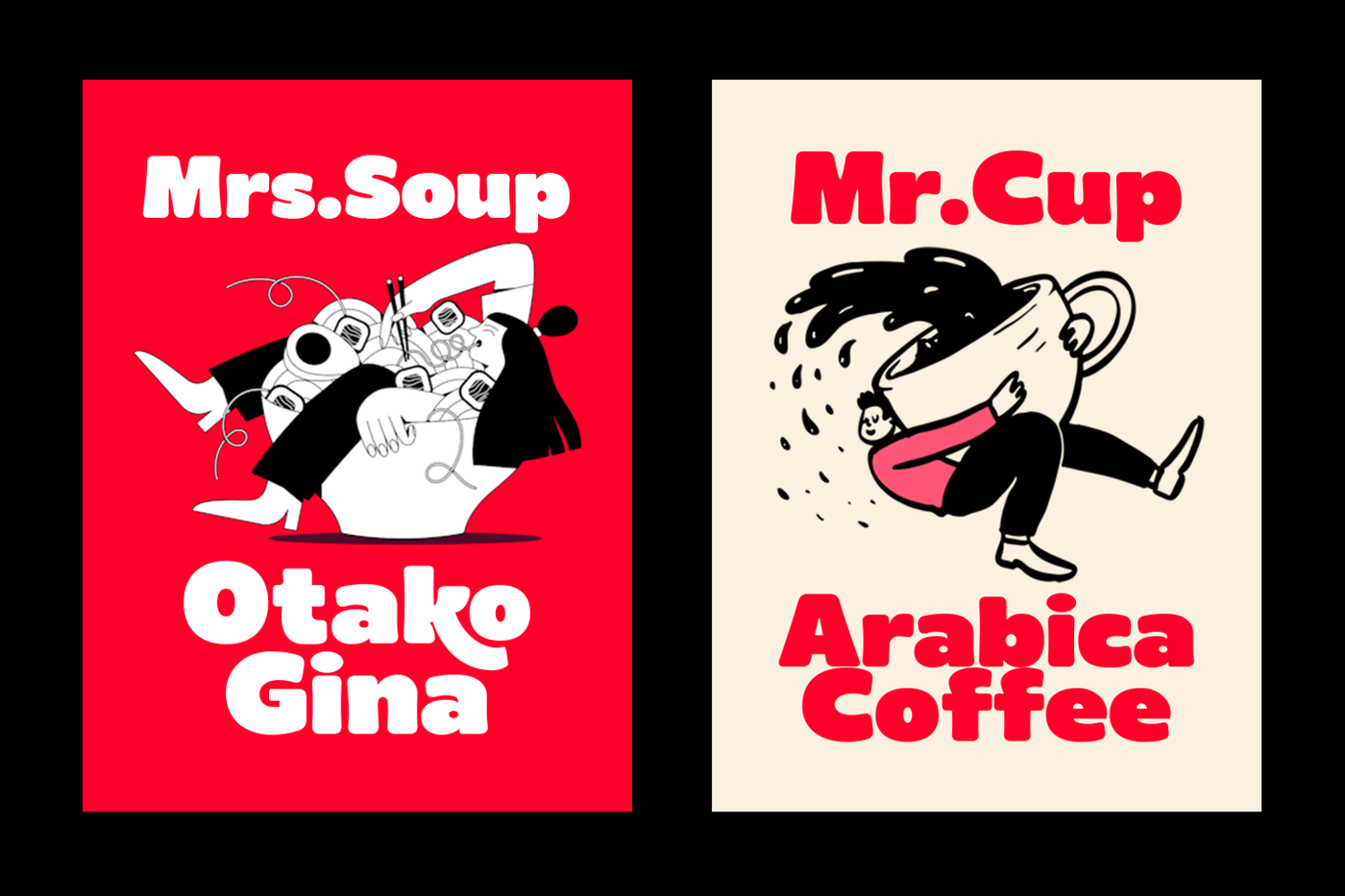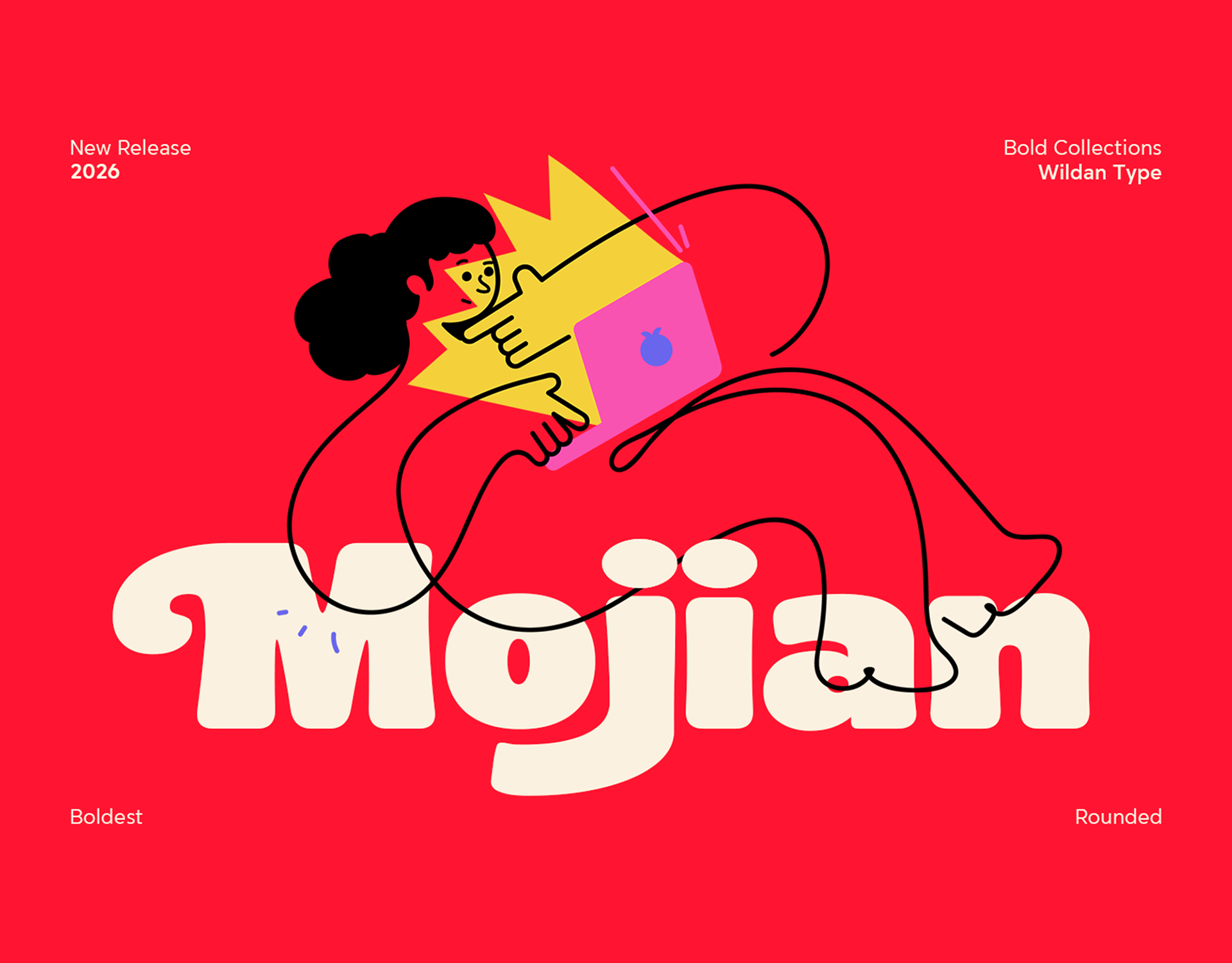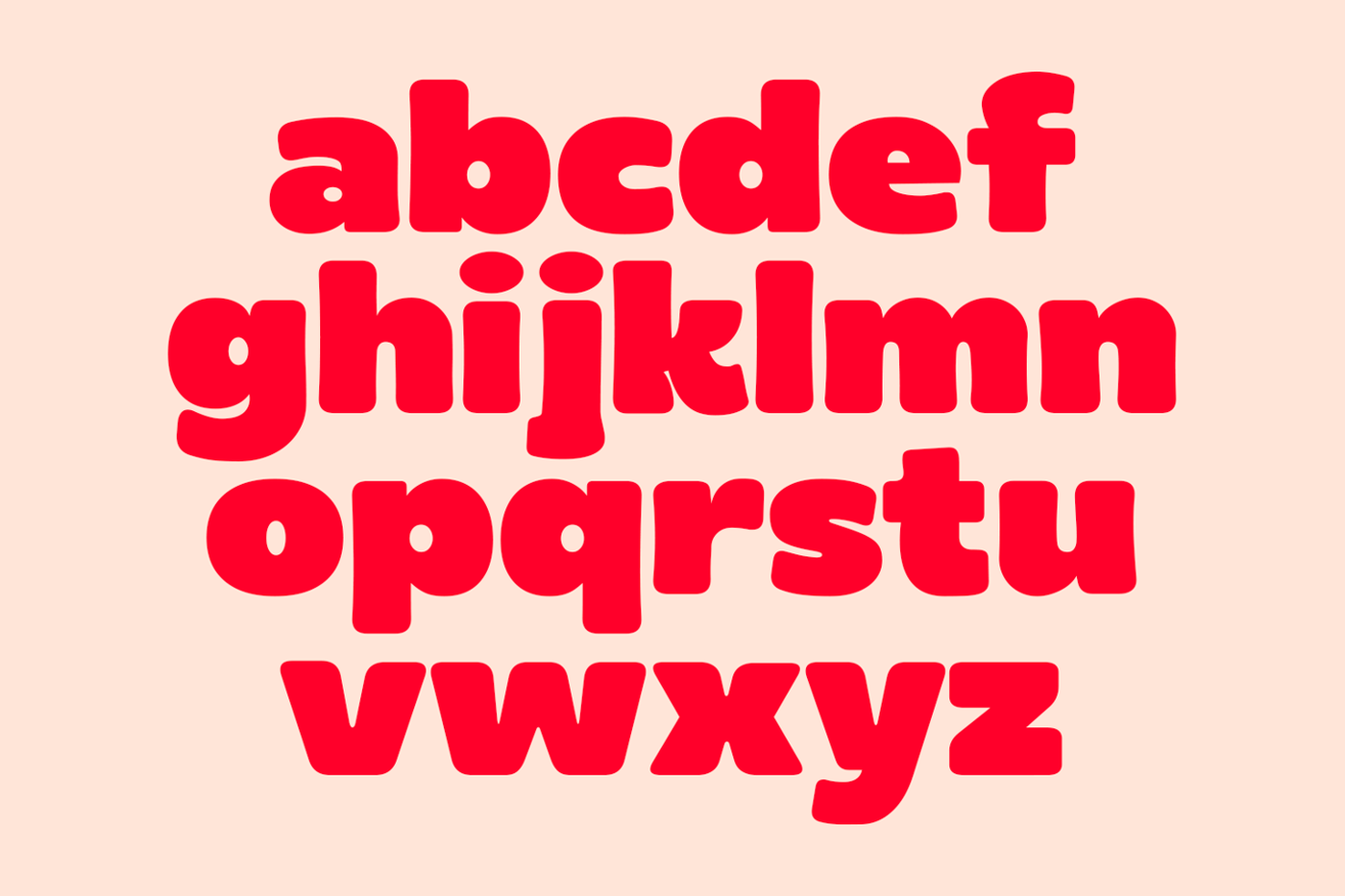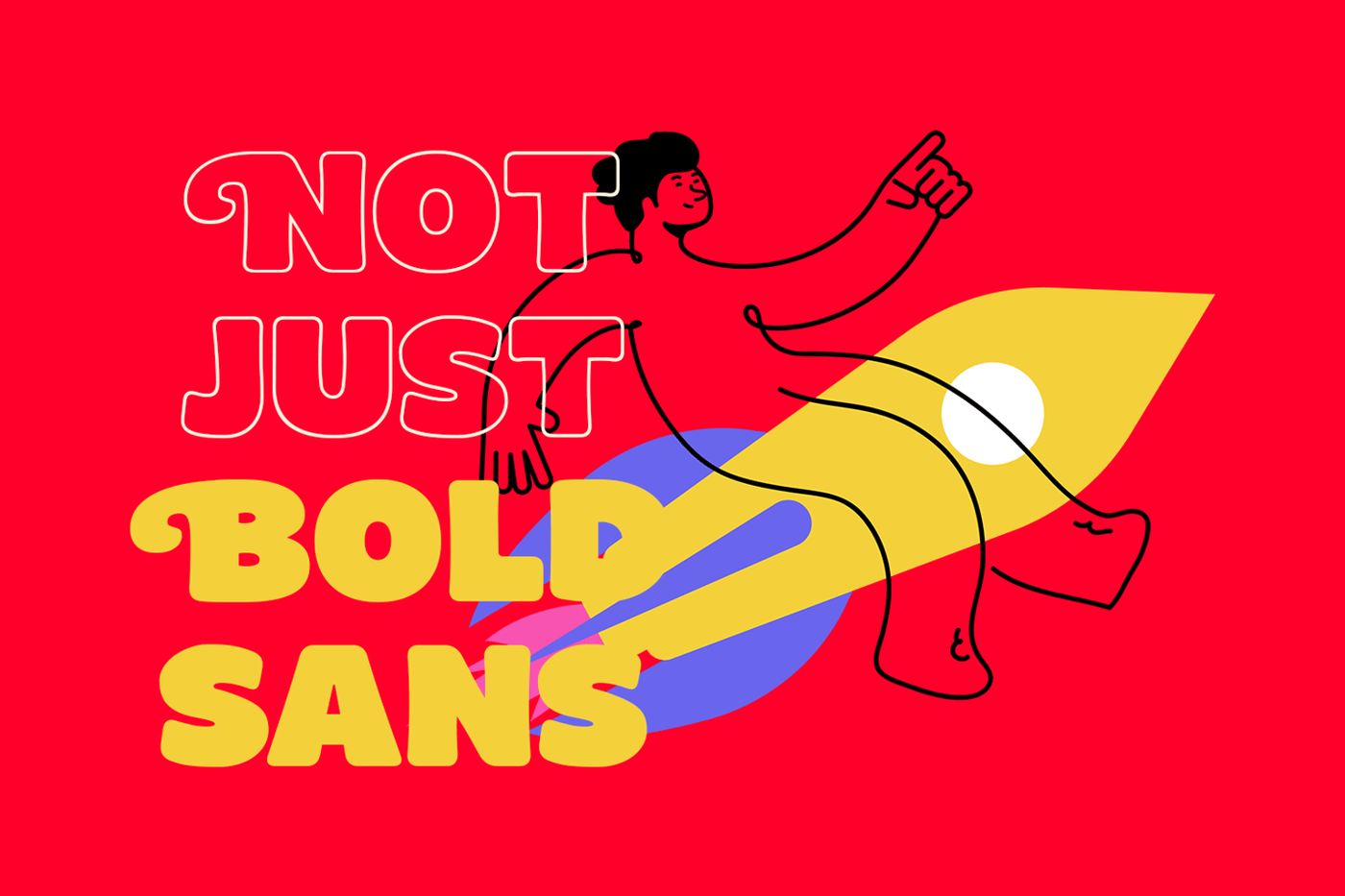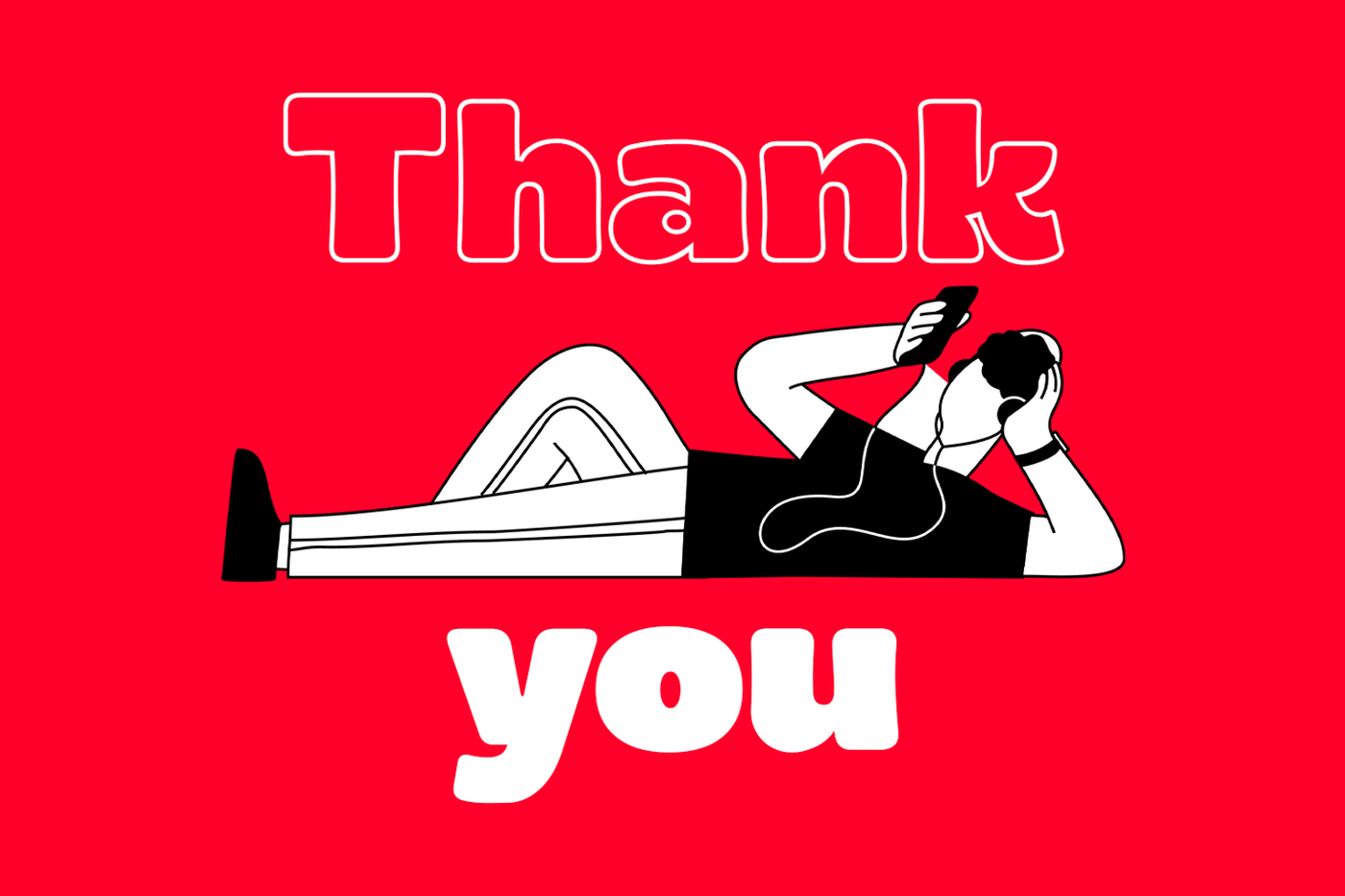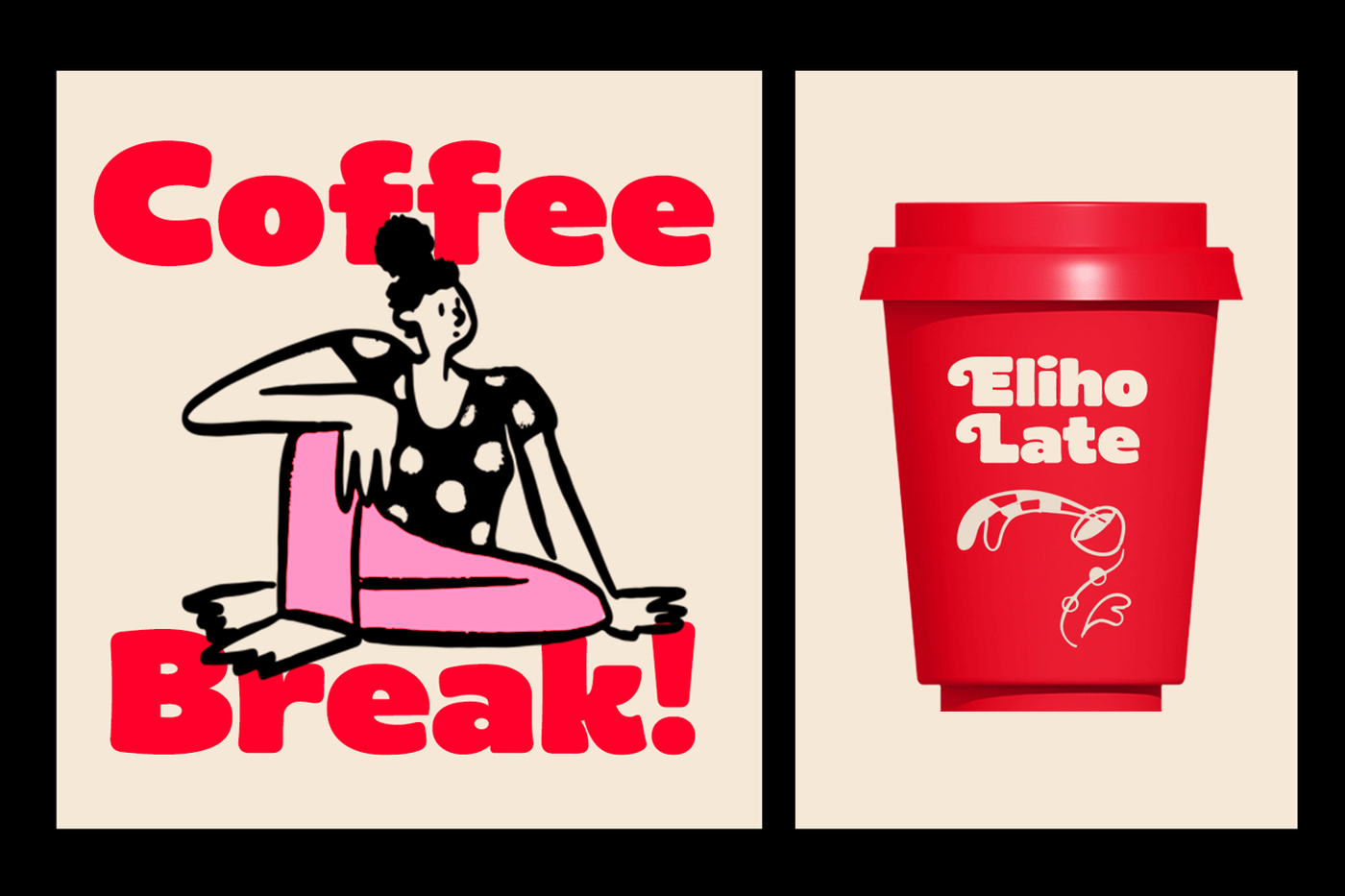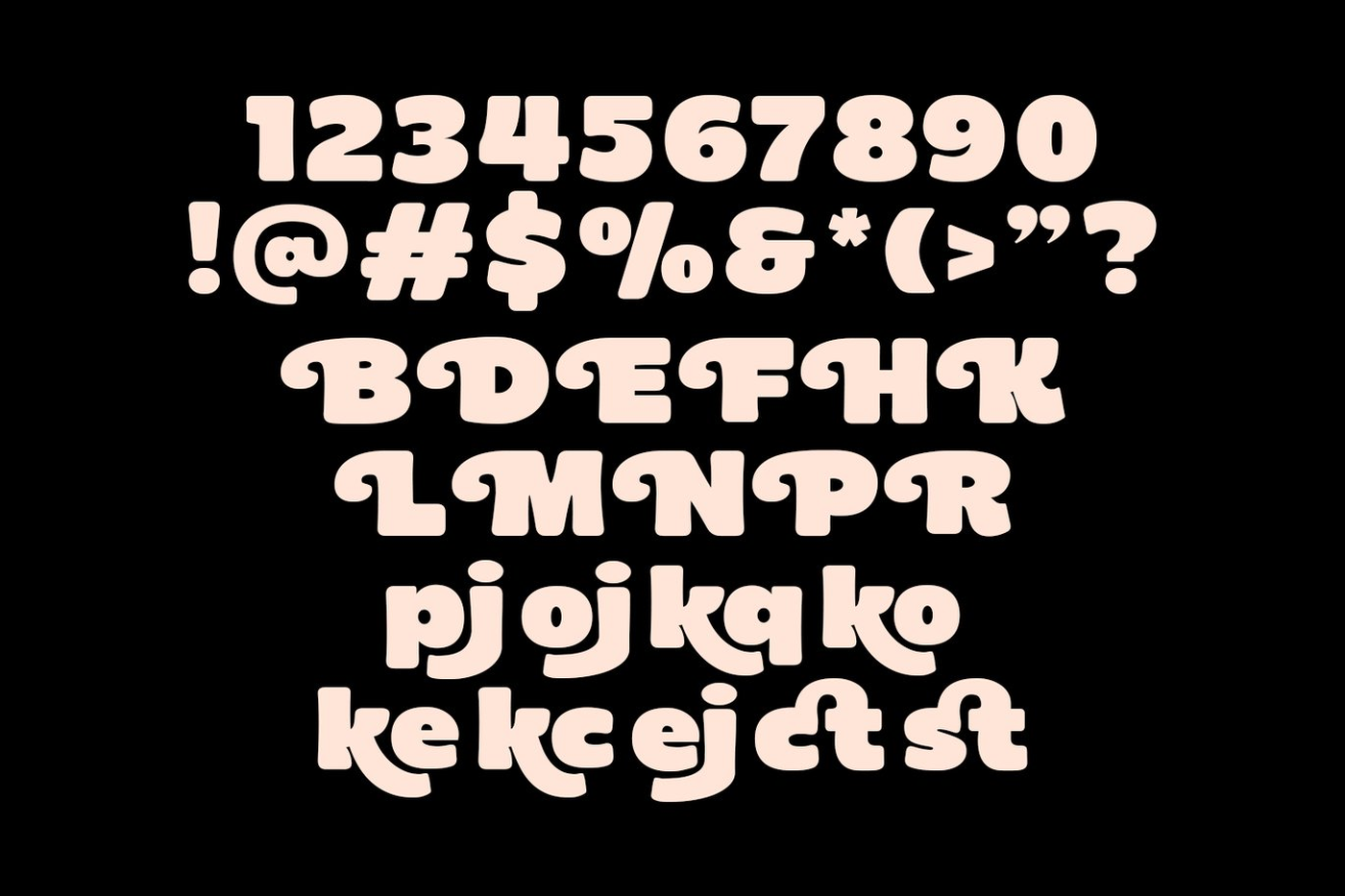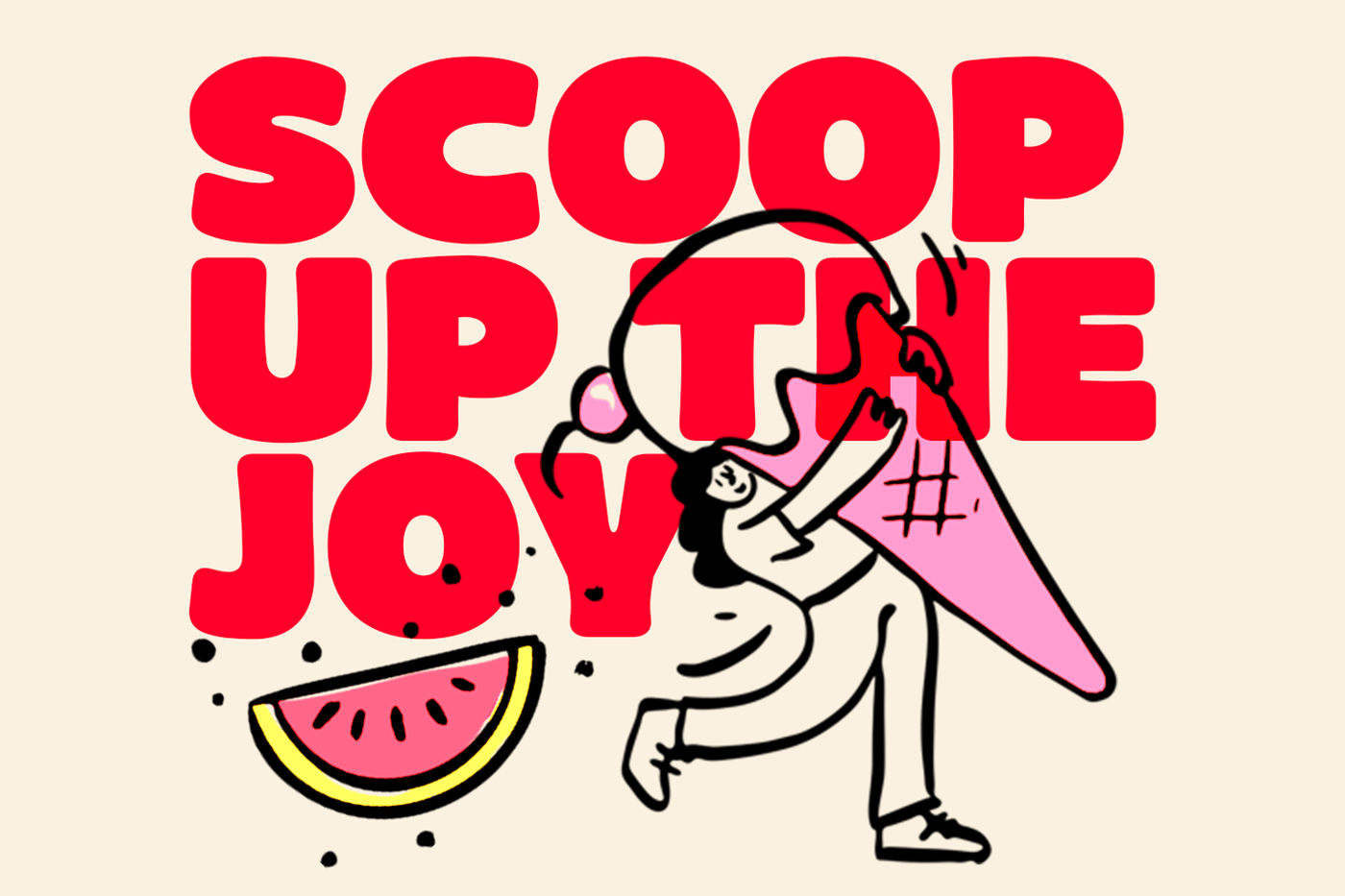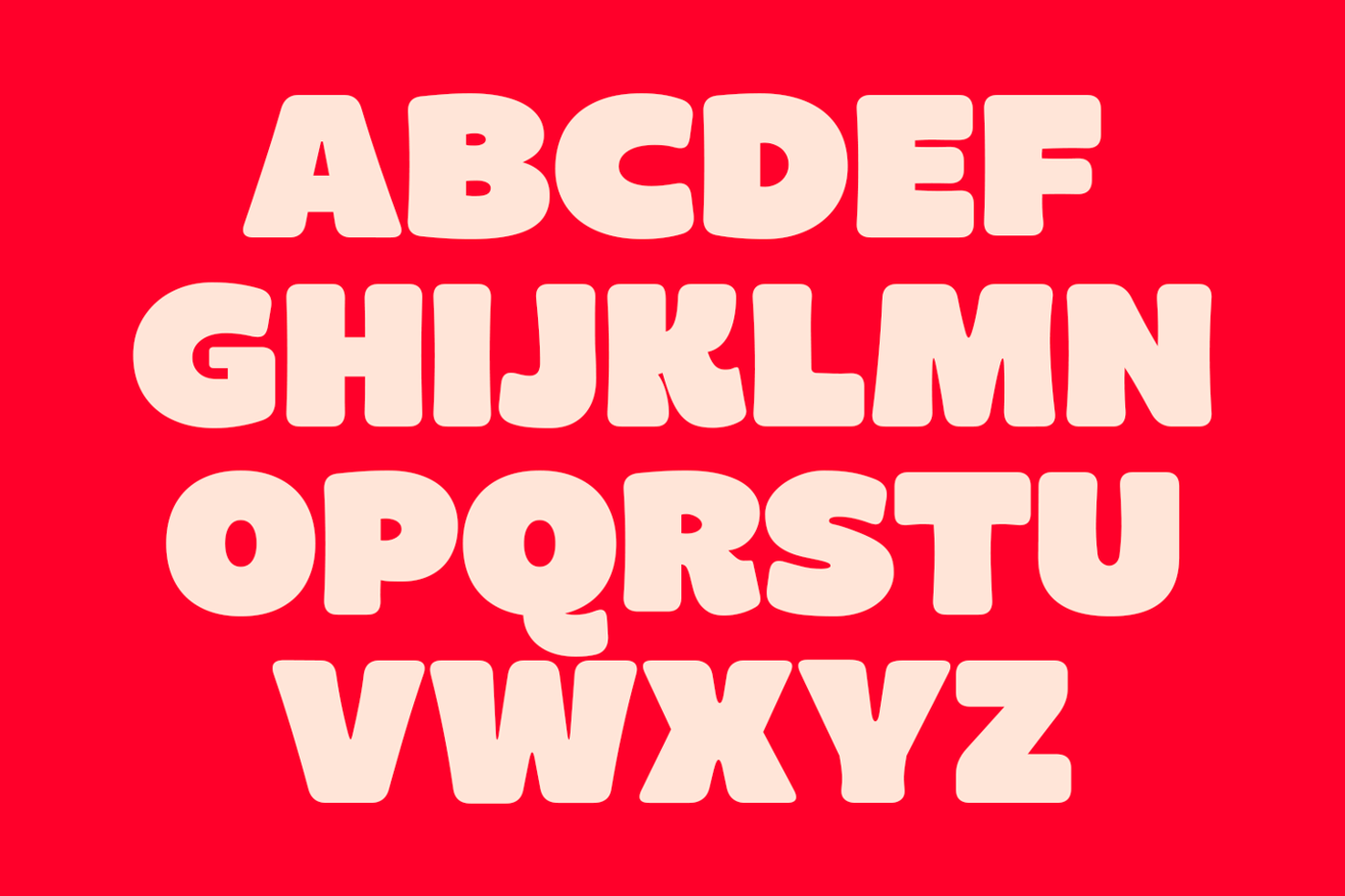
Mojian - Bold Groovy Font
Meet 'Mojian' Font, the Heaviest and happiest font on the block! Design with maximum boldness in mind, this chubby sans-serif typeface combine the nostalgic funk of the 70s with a modern, playful twist. Every letter is crafted to take up space and grab attention. its rounded corners and heavy weight make it feel soft like marshmallow but strong enough to carry your brand's massage. Whether your are designing trendy, fun, groovy, Mojian brings the energy you need.
Designer: Wildan Type
Font: Mojian